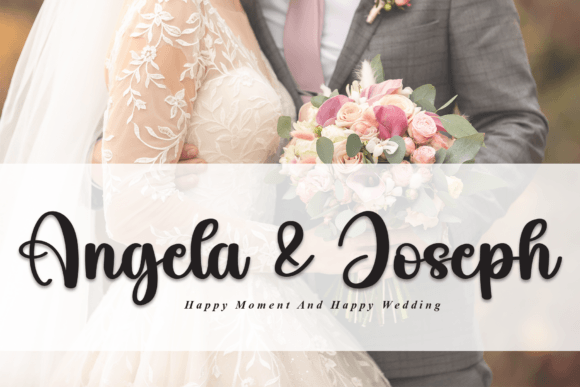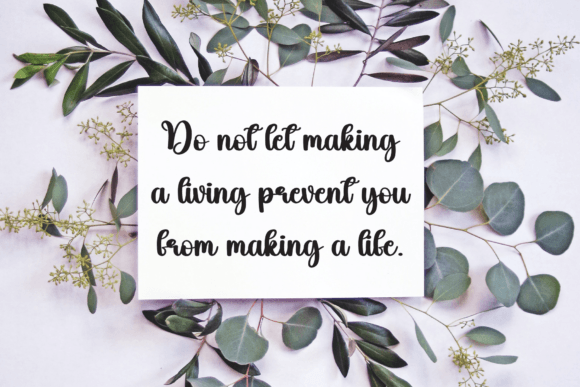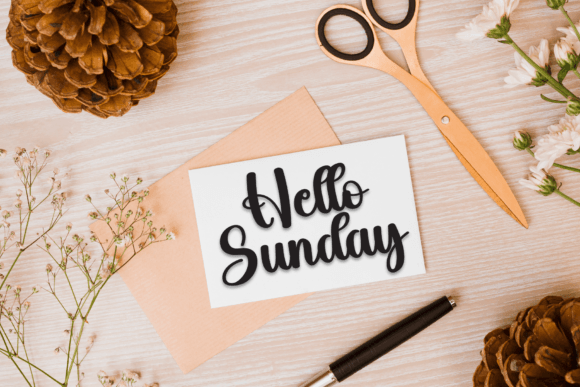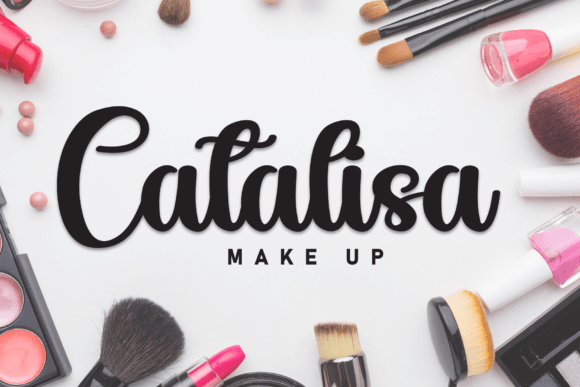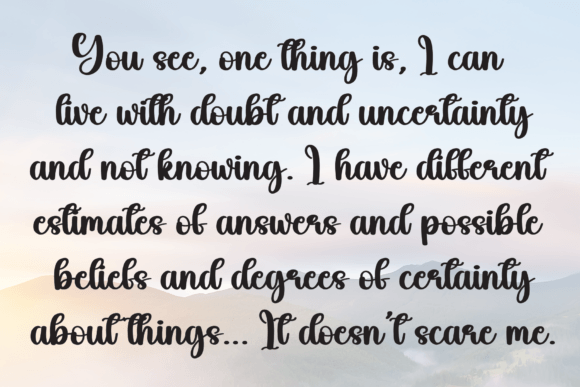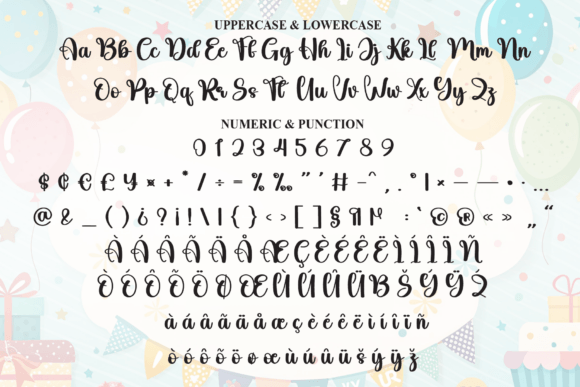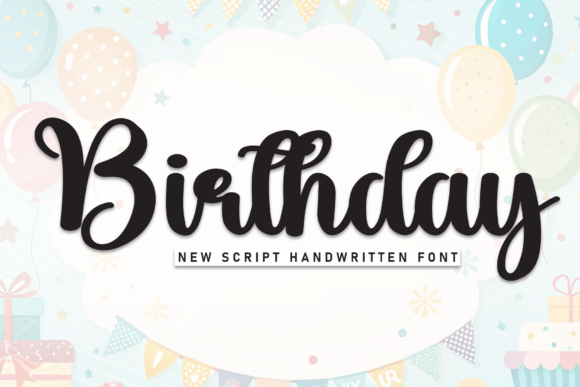
Introducing the Charming Birthday Font: Elevate Your Designs with a Personal Touch
Are you searching for a font that adds a dash of whimsy and charm to your designs? Look no further than our delightful Birthday Font, a hand-scripted display font that is sure to captivate your audience. With its famously amicable and delightful style, this font is perfect for wedding invitations, greeting cards, and any design project that craves a sprinkle of fun.
The Beauty of Hand-Scripted Typography
Our Birthday Font is a labor of love, carefully crafted to bring a touch of elegance and sophistication to your designs. Each letter is meticulously written by hand, giving the font a unique and personal feel that is hard to replicate with digital fonts. The result is a beautiful, one-of-a-kind typography that adds a special touch to any design project.
Wedding invitations and greeting cards are special occasions that deserve a font that is equally special. Our Birthday Font is designed to make your loved ones feel extra special, with its charming and whimsical style that is sure to put a smile on their faces. Whether you’re designing a wedding invitation, a birthday card, or a holiday greeting, this font is the perfect choice.
Effortlessly Enhance Your Designs
Our Birthday Font is incredibly versatile, making it easy to incorporate into any design project. Whether you’re a professional designer or a crafty DIY enthusiast, this font is sure to become a favorite. With its clean and elegant lines, it’s perfect for a wide range of applications, from digital designs to print materials.
Add a Sprinkle of Fun to Your Designs
What sets our Birthday Font apart is its ability to add a sprinkle of fun to any design project. Whether you’re designing a children’s party invitation or a greeting card for a friend, this font is sure to bring a touch of whimsy and playfulness to your design. Its charming and delightful style is sure to captivate your audience and leave a lasting impression.
Why Choose Our Birthday Font?
So why choose our Birthday Font over other fonts? Here are just a few reasons:
- Unique and Personal Touch: Our font is hand-scripted, giving it a unique and personal feel that is hard to replicate with digital fonts.
- Versatile: Our font is incredibly versatile, making it easy to incorporate into any design project.
- Charming and Whimsical: Our font is sure to add a touch of whimsy and charm to any design project.
Tips for Using Our Birthday Font
Here are a few tips for using our Birthday Font in your design projects:
- Pair with Other Fonts: Our Birthday Font pairs well with other fonts, making it easy to create a unique and visually appealing design.
- Experiment with Colors: Our font looks great in a variety of colors, so don’t be afraid to experiment and find the perfect color for your design.
- Use for Headings and Titles: Our font is perfect for headings and titles, adding a touch of elegance and sophistication to your design.
Whether you’re a professional designer or a crafty DIY enthusiast, our Birthday Font is the perfect choice for any design project. Its versatility, charm, and whimsy make it a font that you’ll want to use again and again. So go ahead, get creative, and see what amazing designs you can create with our Birthday Font!